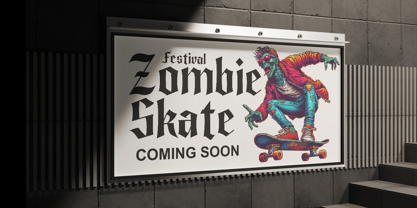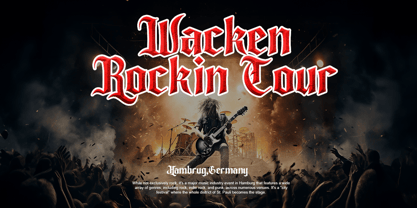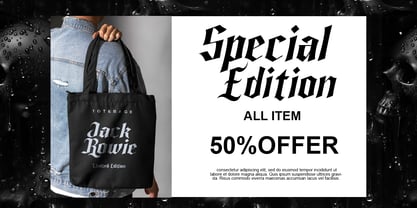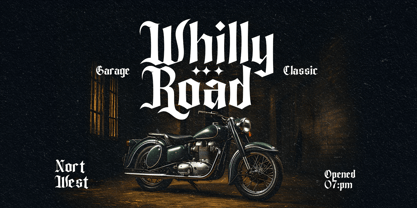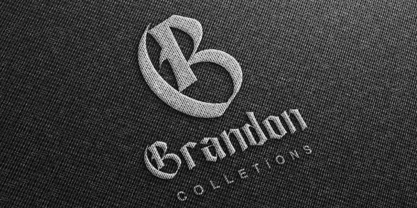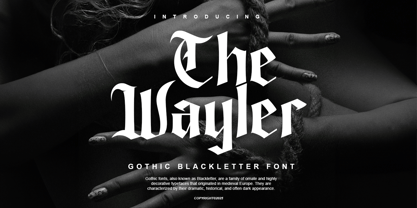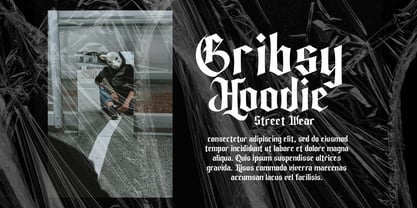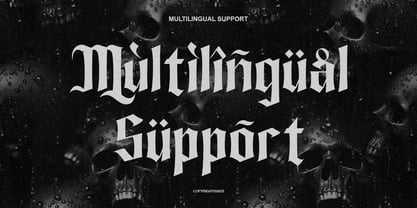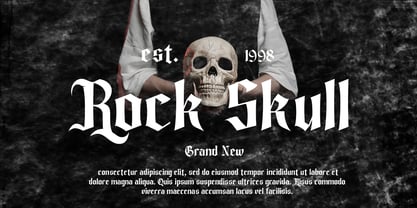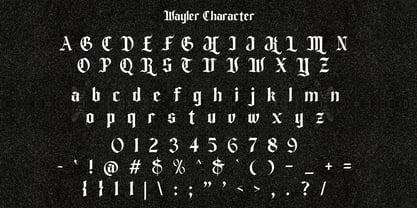
The Wayler
The The Wayler Font Family was designed by Yogiswhara Dio Prakoso Riadi and published by RagamKata. The Wayler contains 2 styles and family package options. More about this family
The Wayler is Gothic Blackletter Font, unique blackletter for your design. forged for those who dare to stand out. With sharp edges, aggressive strokes, and a rebellious soul, this font embodies the raw energy of metal, gothic, and underground aesthetics.
Perfect For:
- Metal band logos & album covers
- Streetwear & edgy fashion branding
- Tattoo-inspired typography
- Skateboard & extreme sports graphics
- Dark fantasy book covers & movie titles
- Gaming logos & esports branding